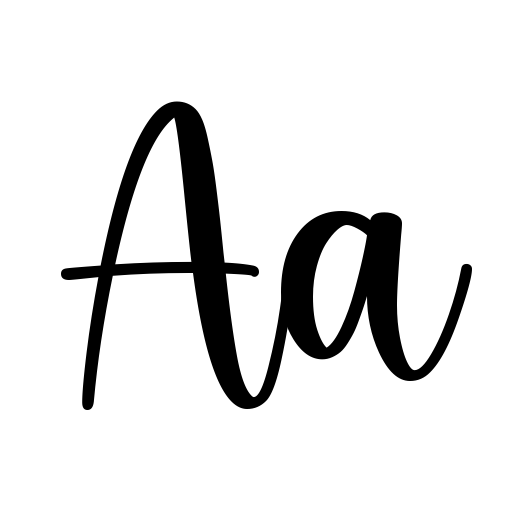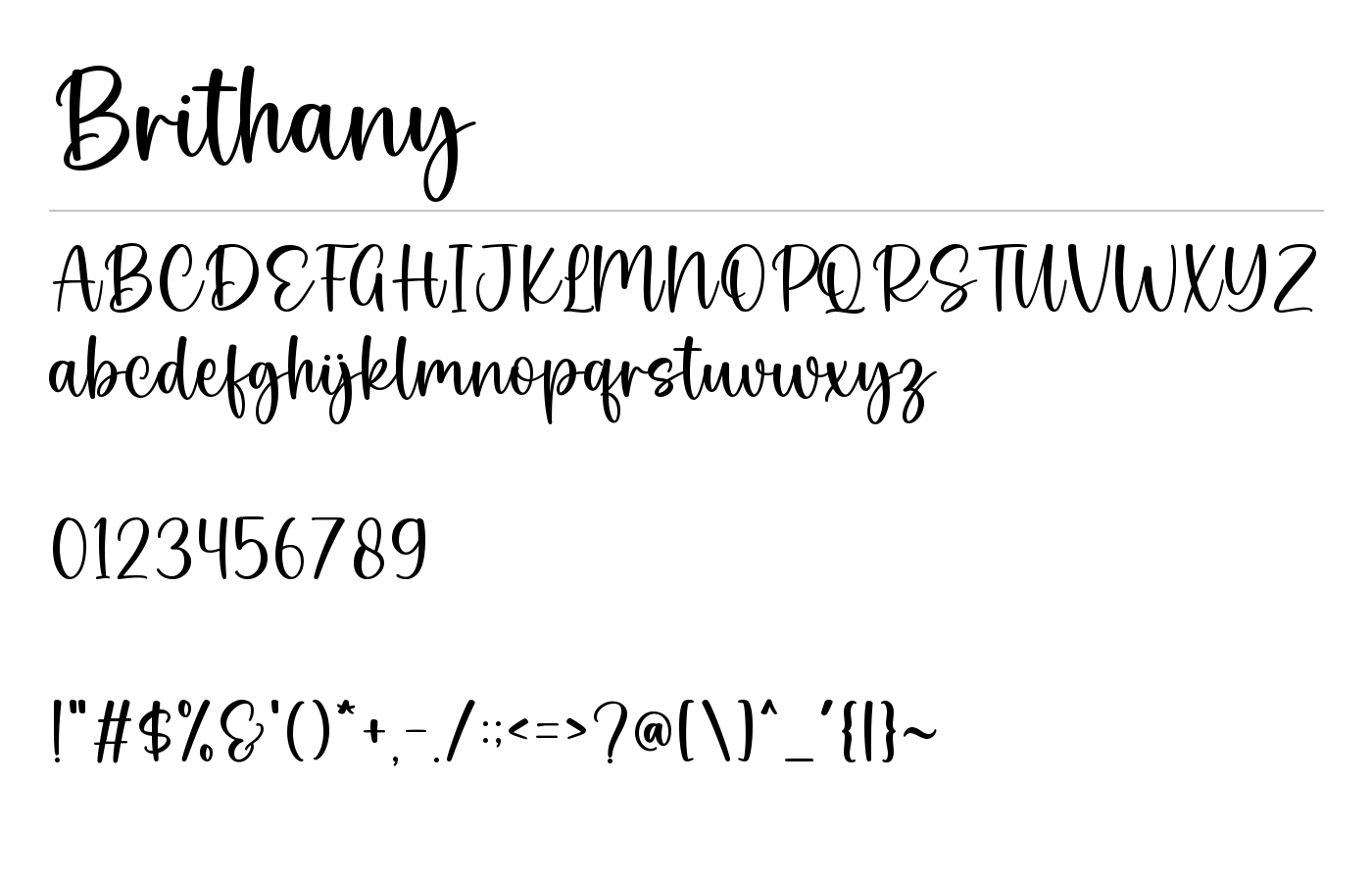
Brithany is a casual script font with a friendly and handwritten feel, characterized by its smooth, flowing strokes and moderate contrast that make it both elegant and approachable. Its rounded shapes and lively letterforms work beautifully for personal branding, invitations, and creative projects where warmth and personality are key. This font’s clear readability and charming style make it ideal for headlines, logos, and packaging that seek a playful yet refined look.
Brithany Font
About Brithany Font
| Font family | Brithany Font |
| Release date | 2022-09-05 |
| Designer | Risma Ramawi |